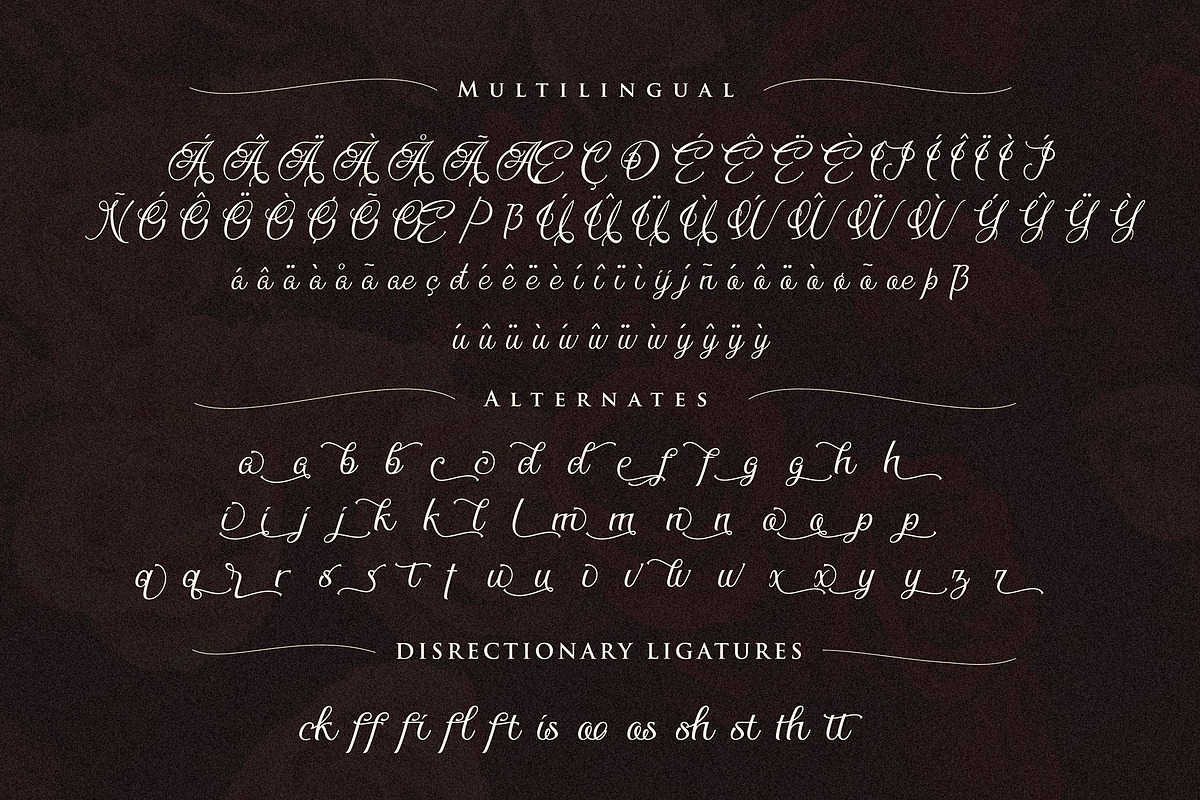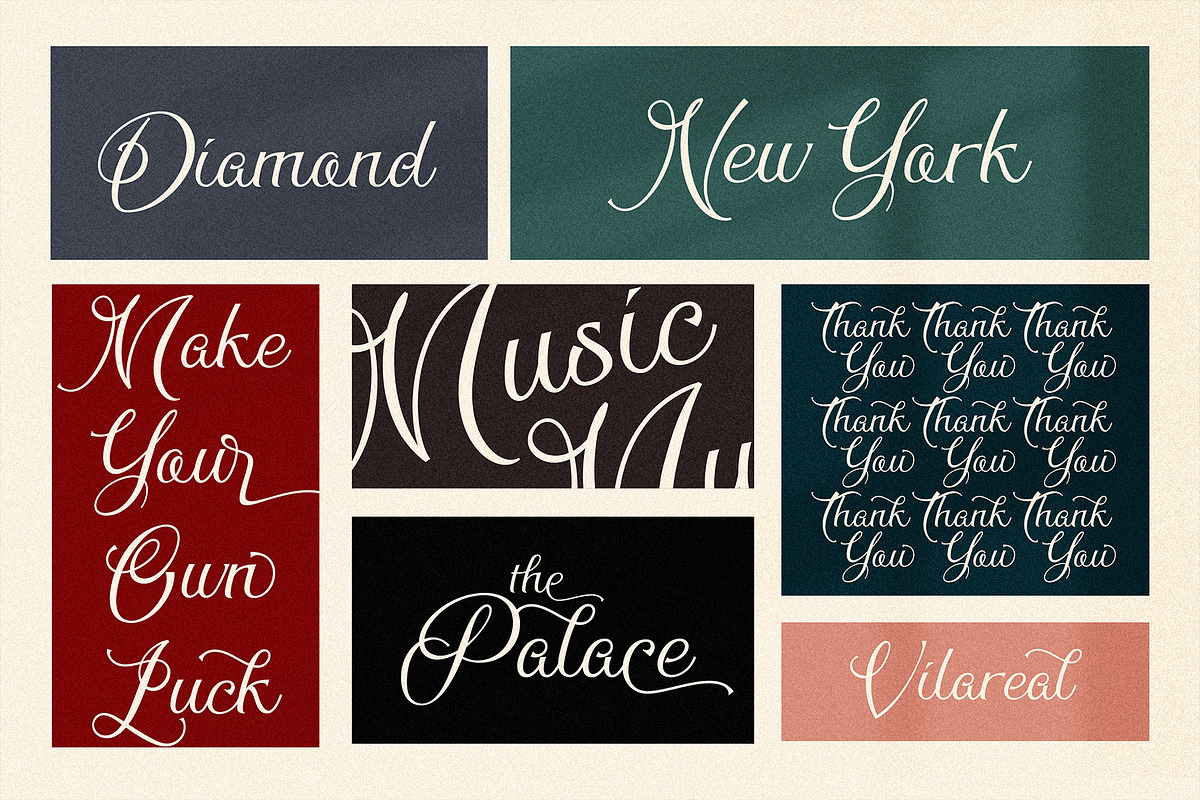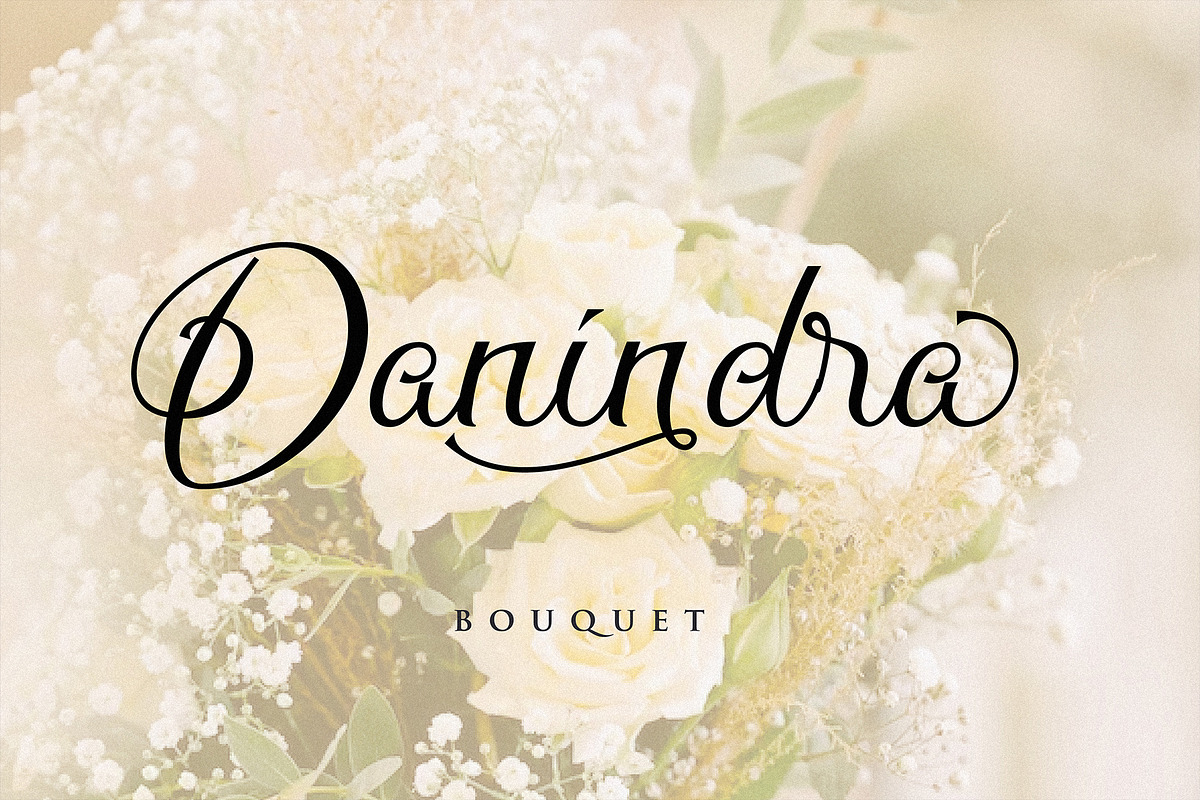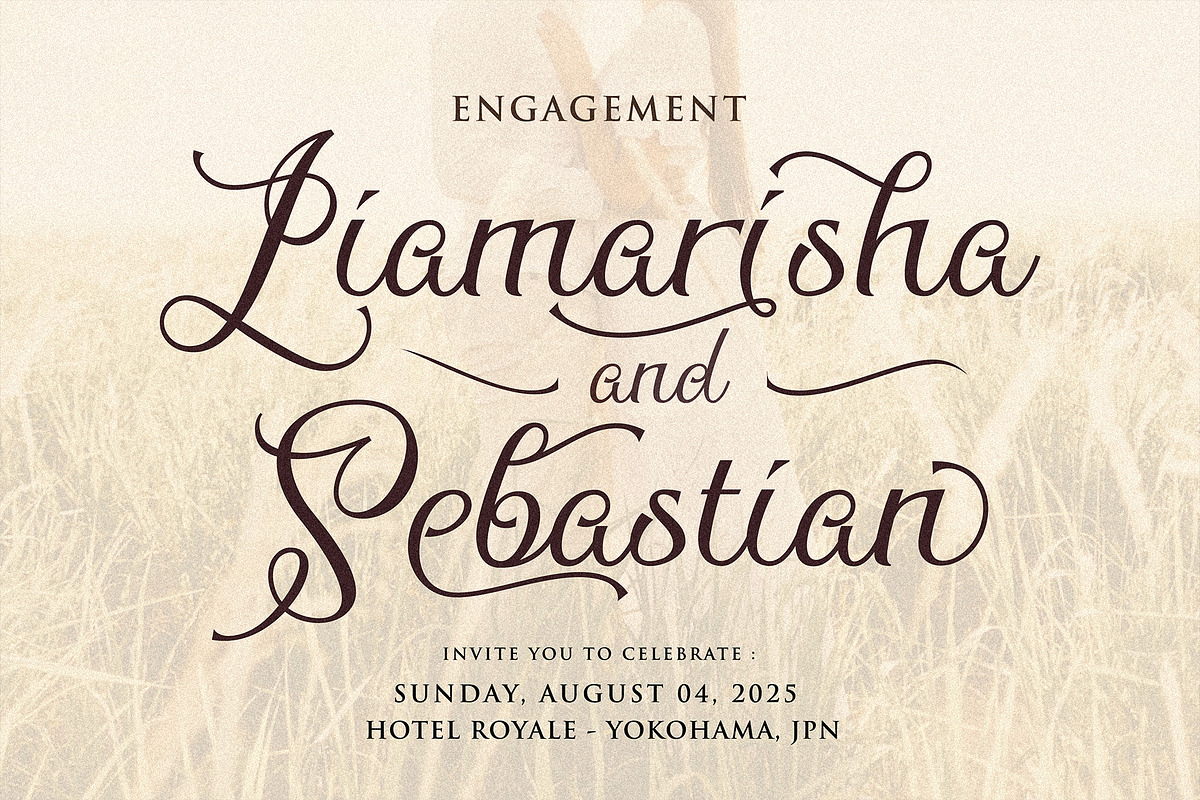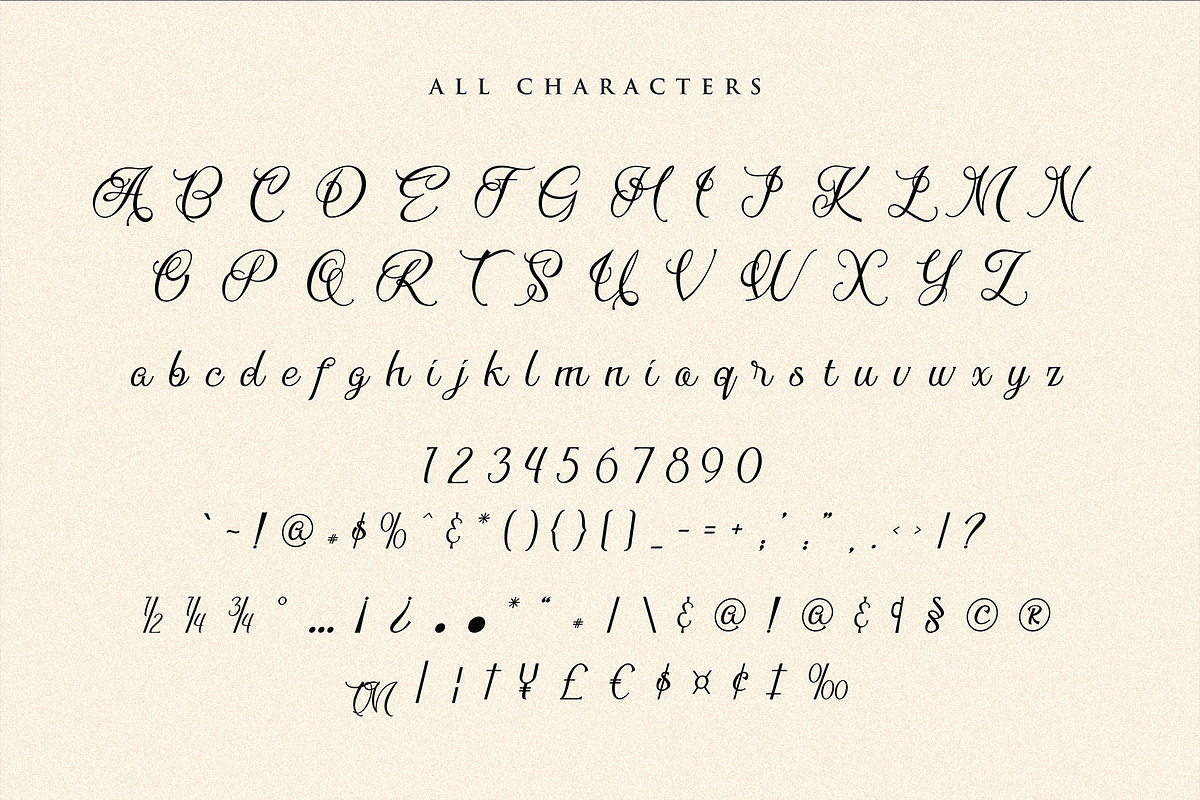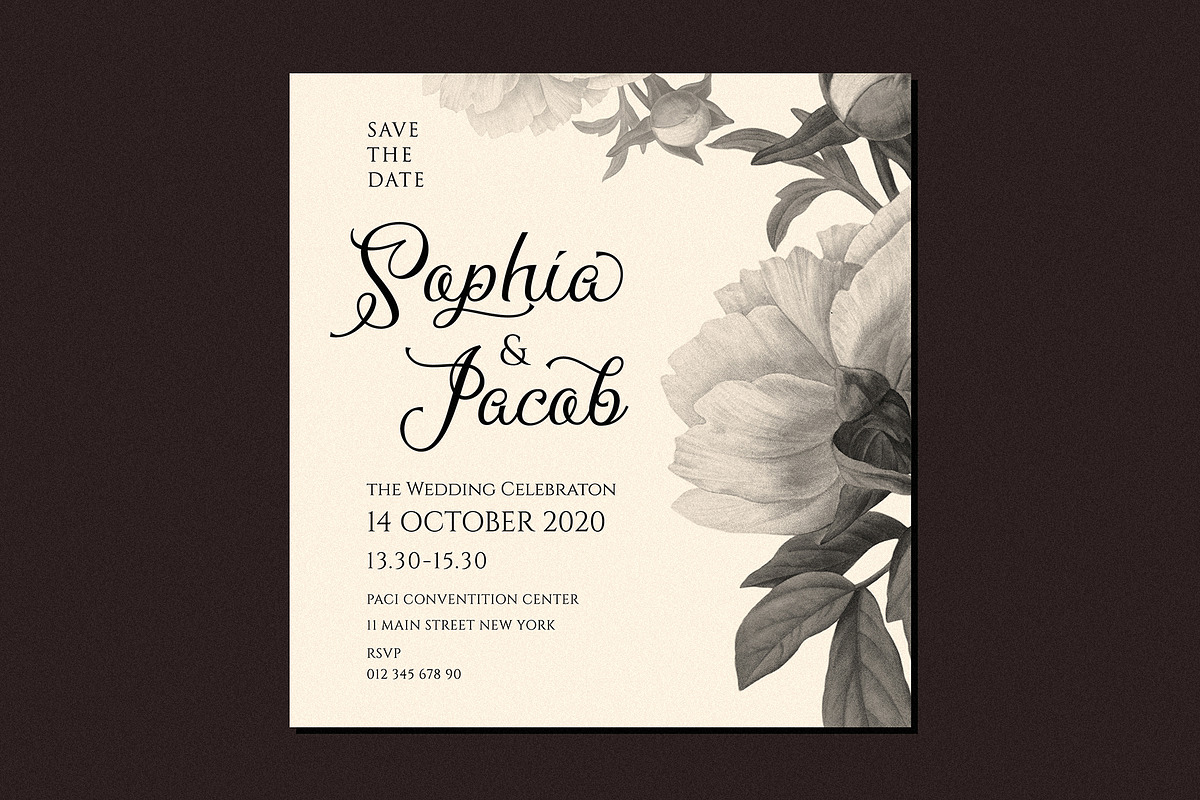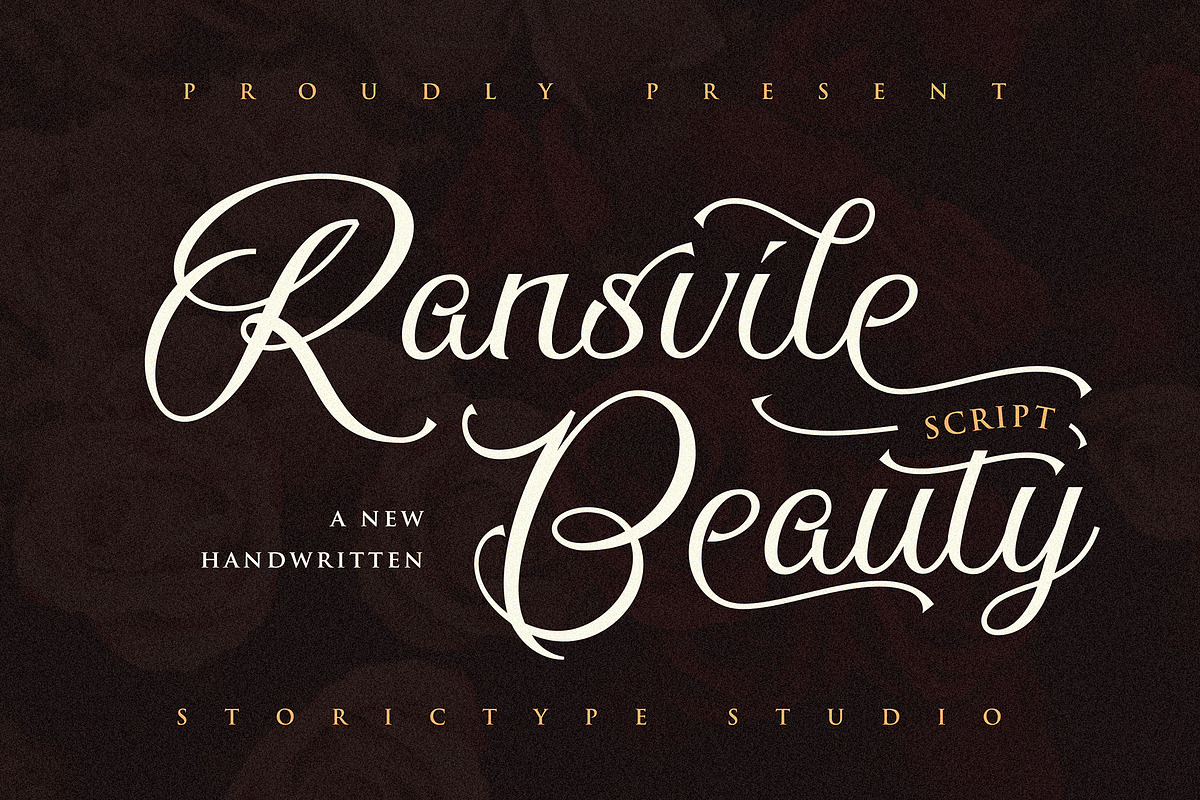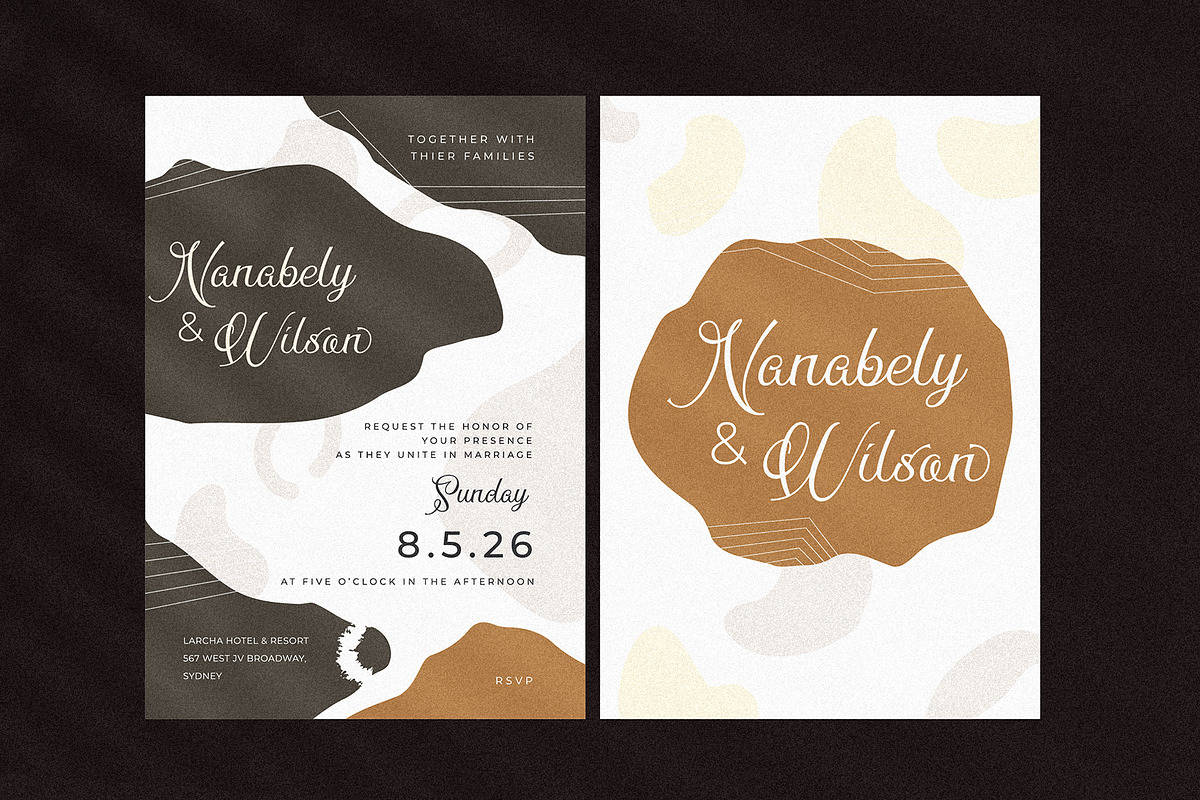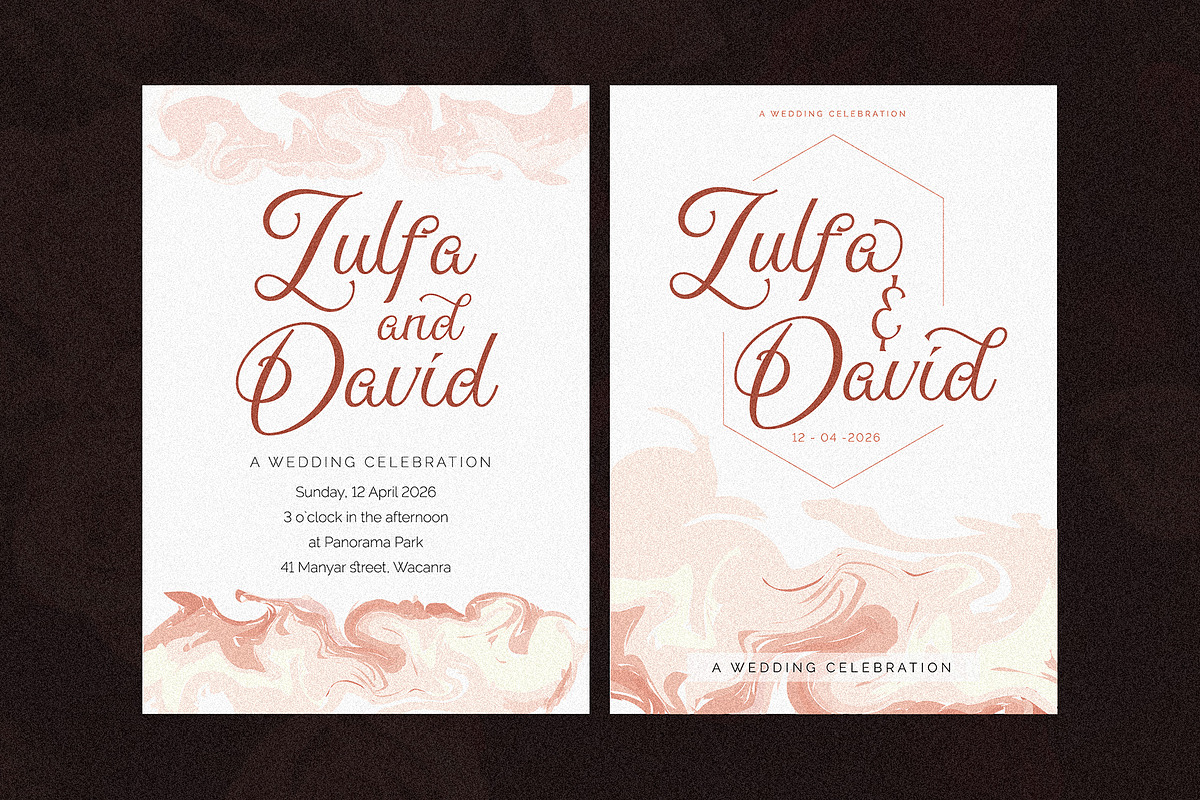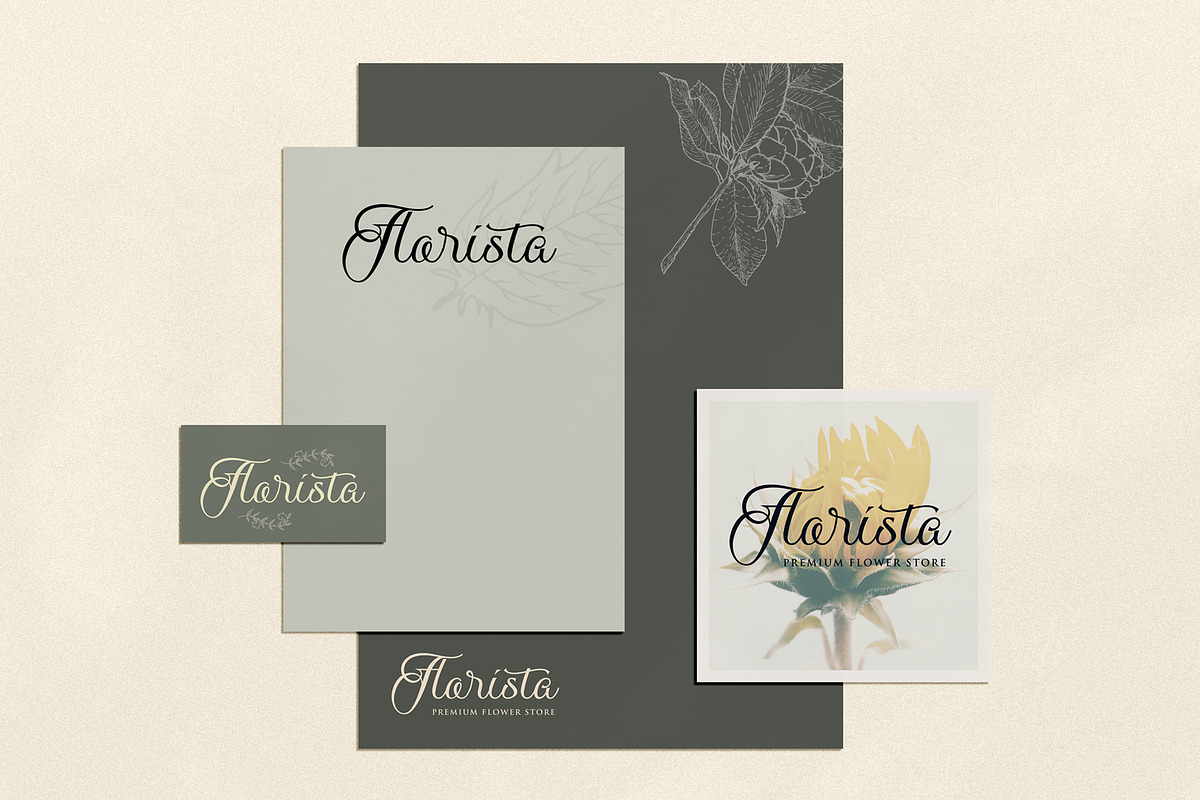
Ransvile Beauty | Wedding Script
Rans Beauty Script , a new handwritten script font that perfectly balances casual style with a hint of femininity. With its effortless charm and carefully crafted ligatures, this font is ideal for adding a touch of elegance and personality to any project, especially in various formal forms such as greeting / wedding cards, invitations, labels, logos, magazines, books, packaging, fashion, make up, stationery, novels, labels or any type of advertising purpose.